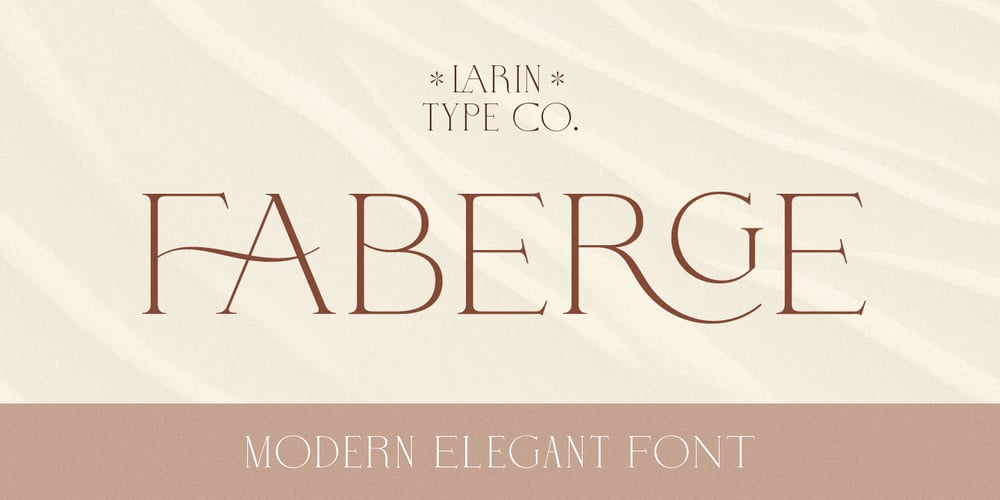
Faberge Font Family was designed by Pavel Larin and published by Larin Type Co. Faberge contains 1 styles and family package options. FABERGE This is elegant logo serif font. It has a light weight and playing forms, the uppercase are more elongated and the lowercase are compressed but they have the same height as the uppercase, with this you can play with space and mix them, with this you will expand the boundaries of your ideas for your project.This font has 44 ligatures ( use uppercase to get them ), 124 alternatives for uppercase and 88 alternatives for lowercase, they will add a touch of playfulness and elegance and make your design unique.